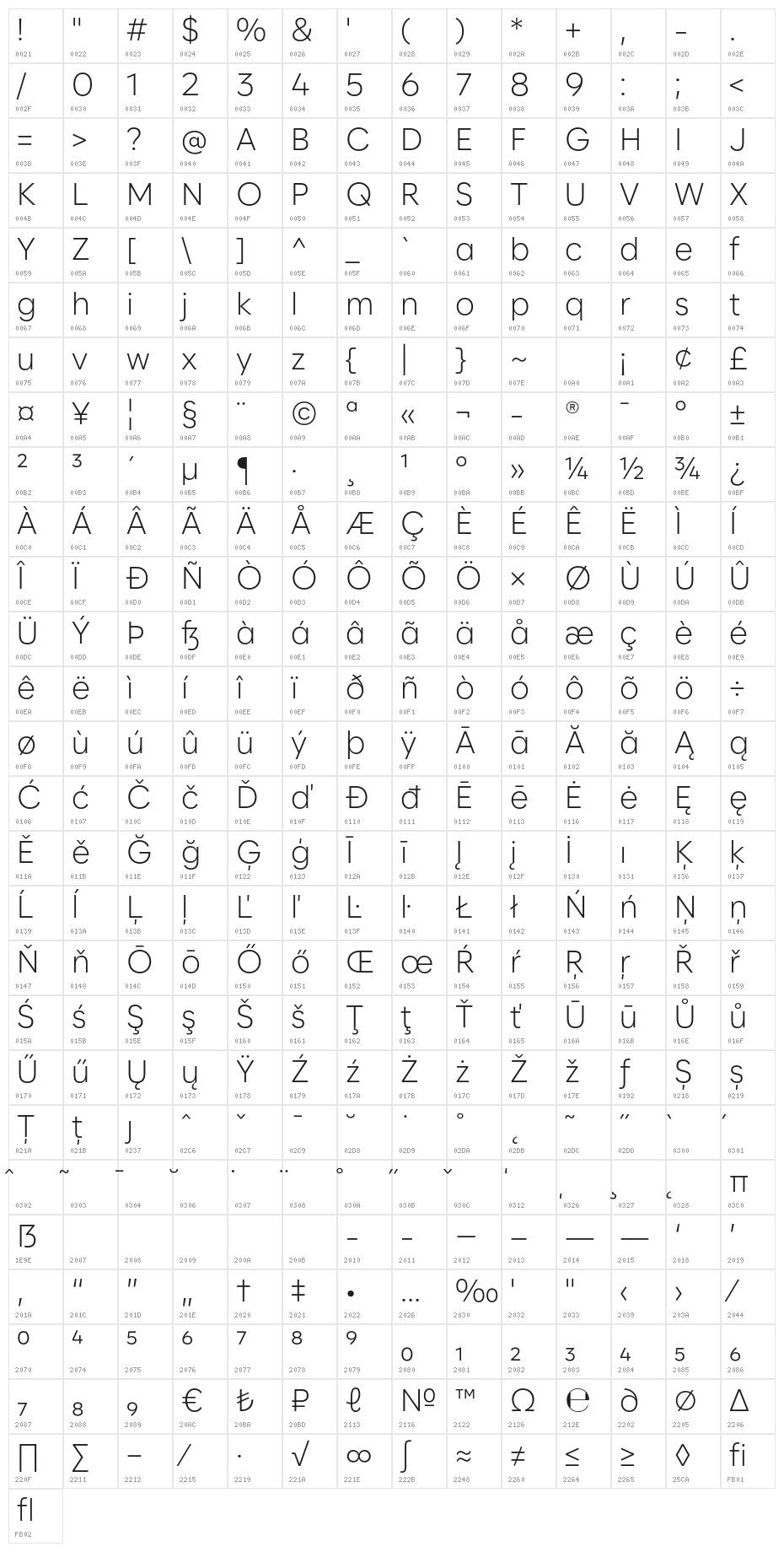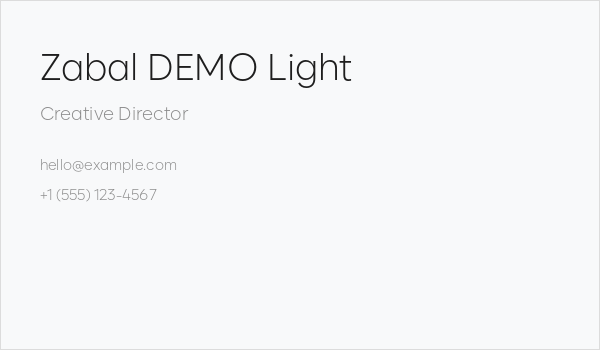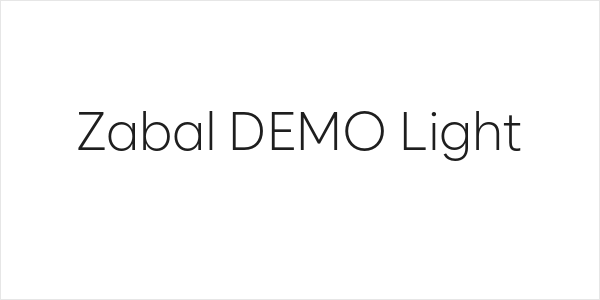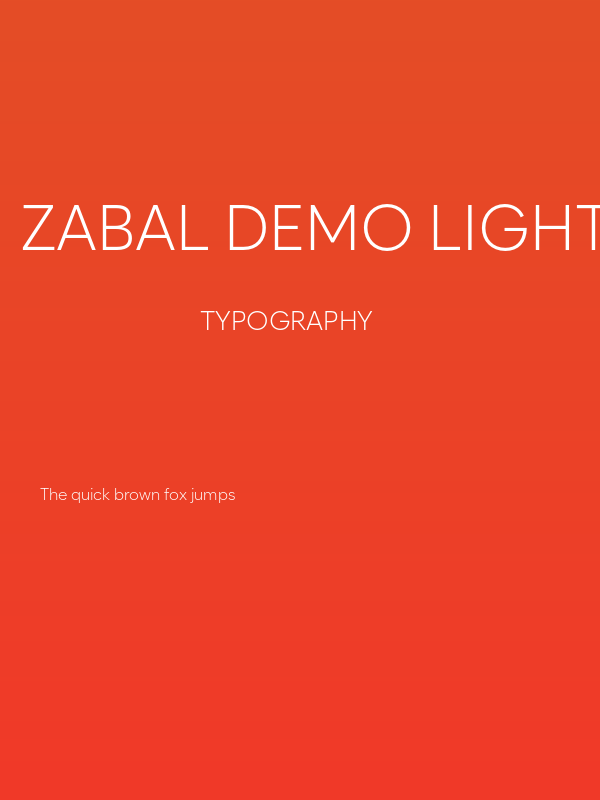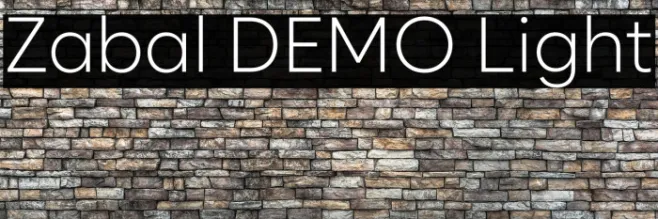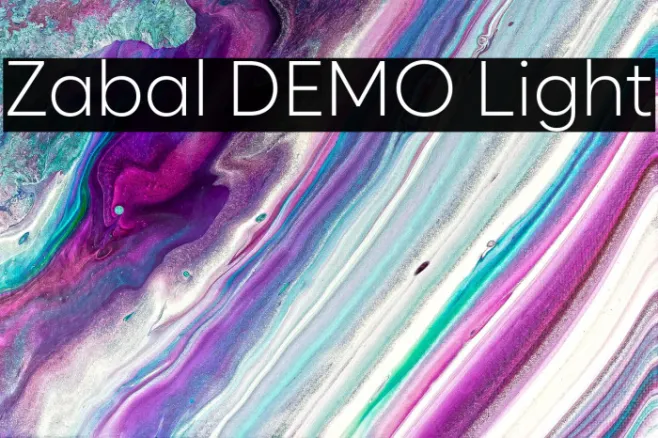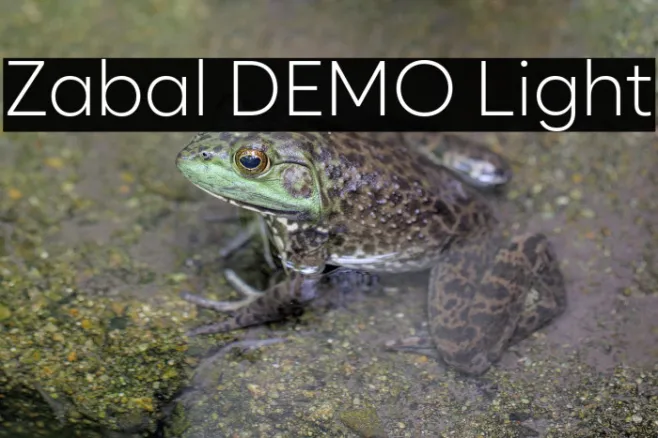
Zabal DEMO Light Font
Zabal DEMO Light Description
This font features a clean and modern sans-serif style with a light weight, making it ideal for minimalist designs. The characters are well-proportioned with a uniform stroke width, contributing to its sleek and contemporary appearance. The uppercase and lowercase letters are distinct and easy to read, while the numerals and special characters maintain the same clarity and precision. The font's simplicity and elegance make it versatile for various design applications, from digital to print media.
| Proposed Projects | Ideal for branding, web design, editorial layouts, and corporate materials. |